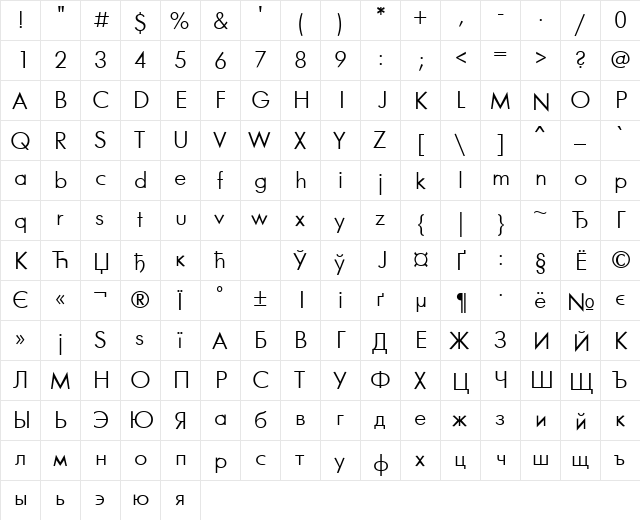
Futuris Cyrillic@
Design Context for Futuris Typeface
Futuris has a distinctly futuristic character, with geometric precision and clean angles that feel at home in technology, gaming, and sci-fi contexts.